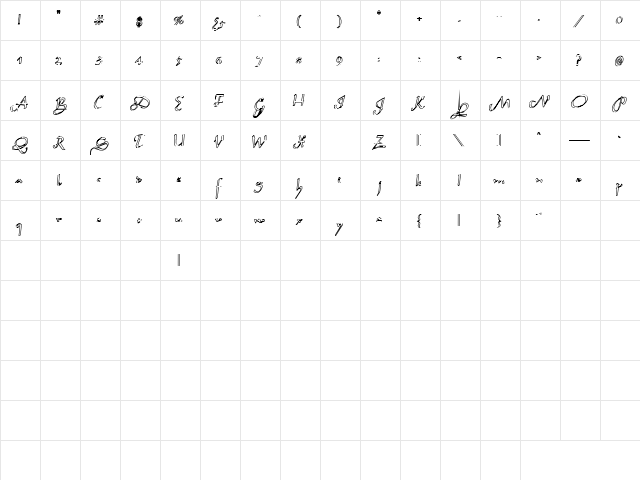
Garbage 1 Regular Font Preview
Garbage 1 Regular
Garbage 1 Regular Font Details
Design Context for Garbage 1 Typeface
Garbage 1 is a composed and adaptable typeface that performs quietly and consistently across a wide range of design contexts.